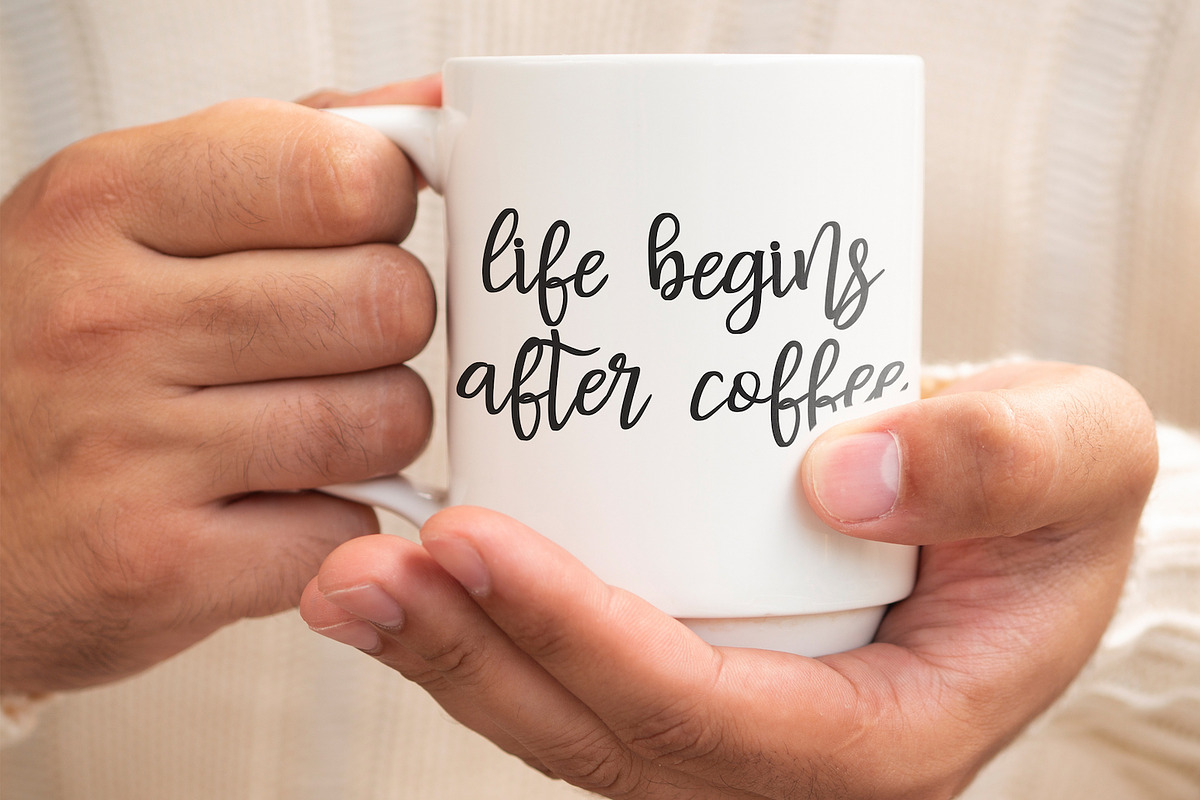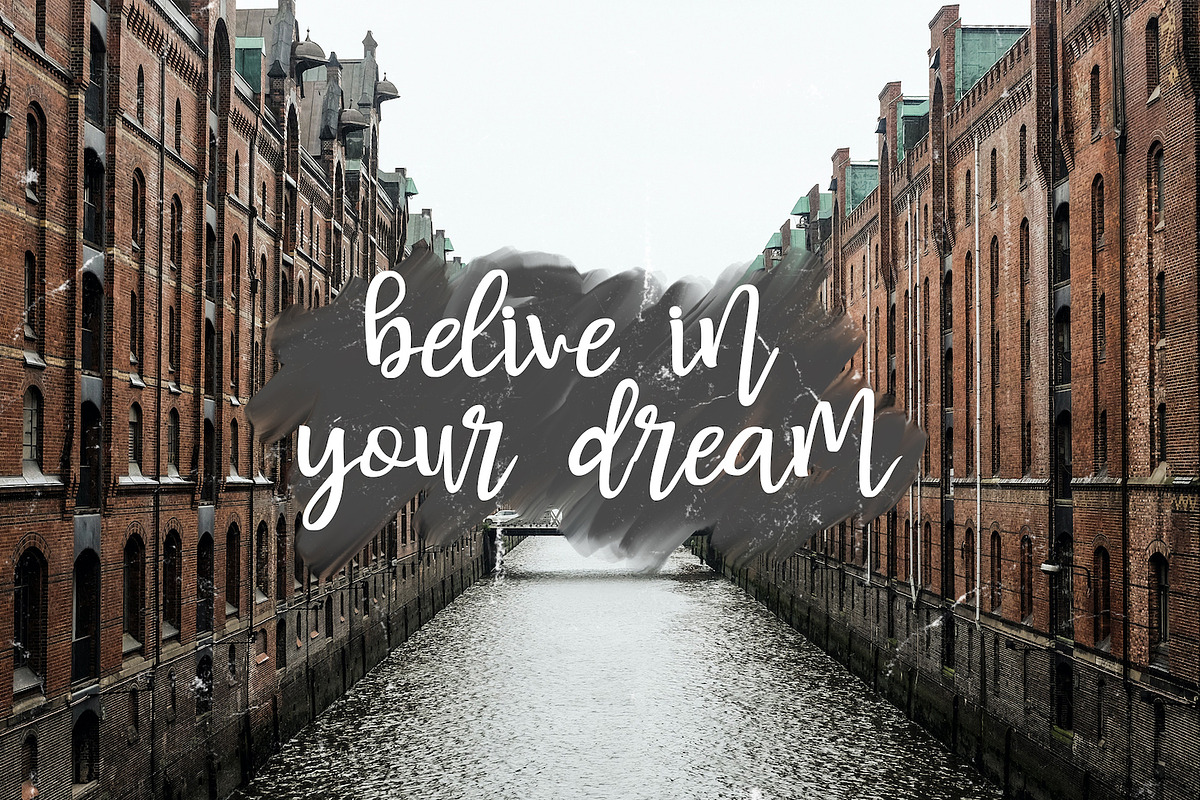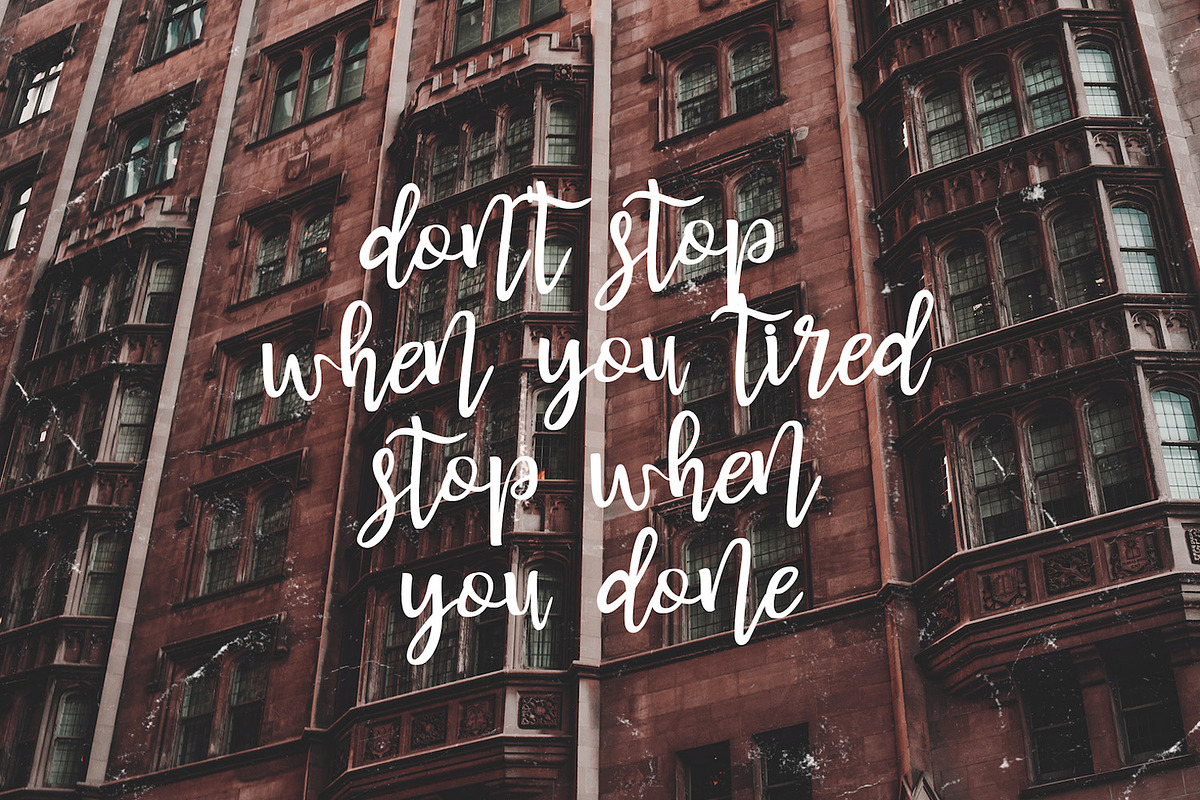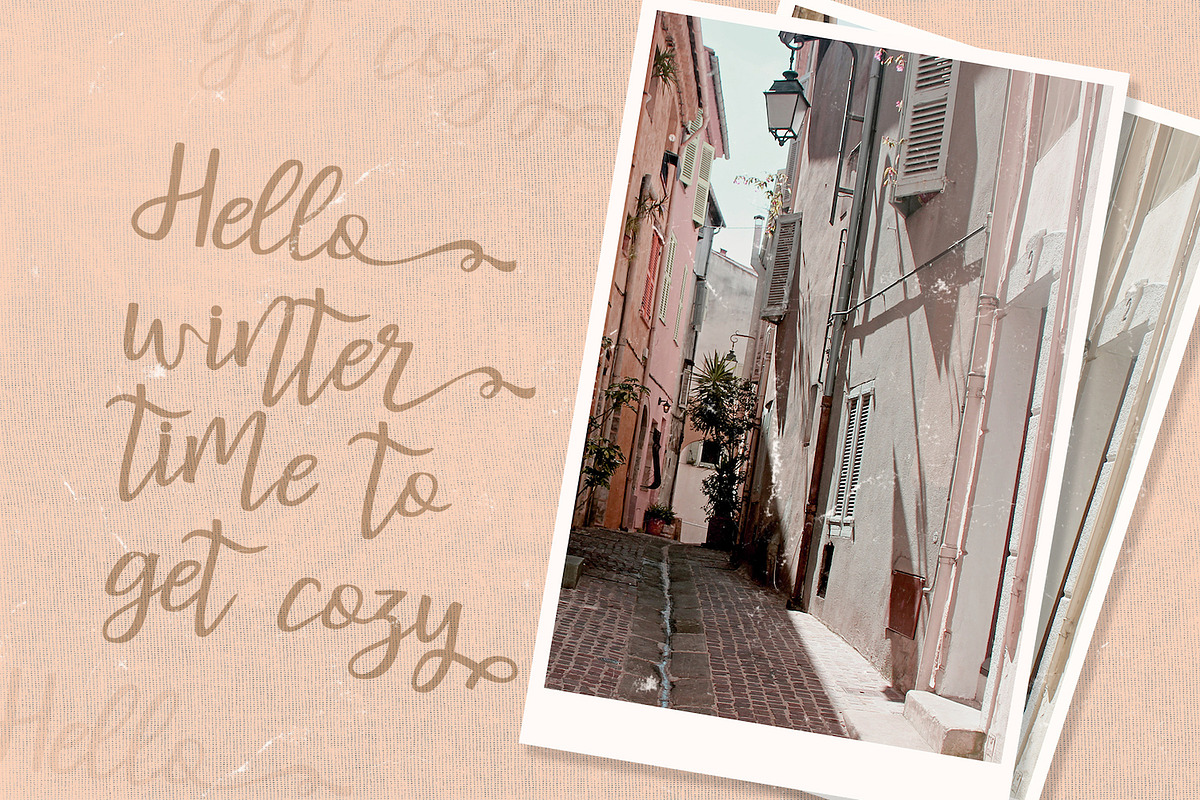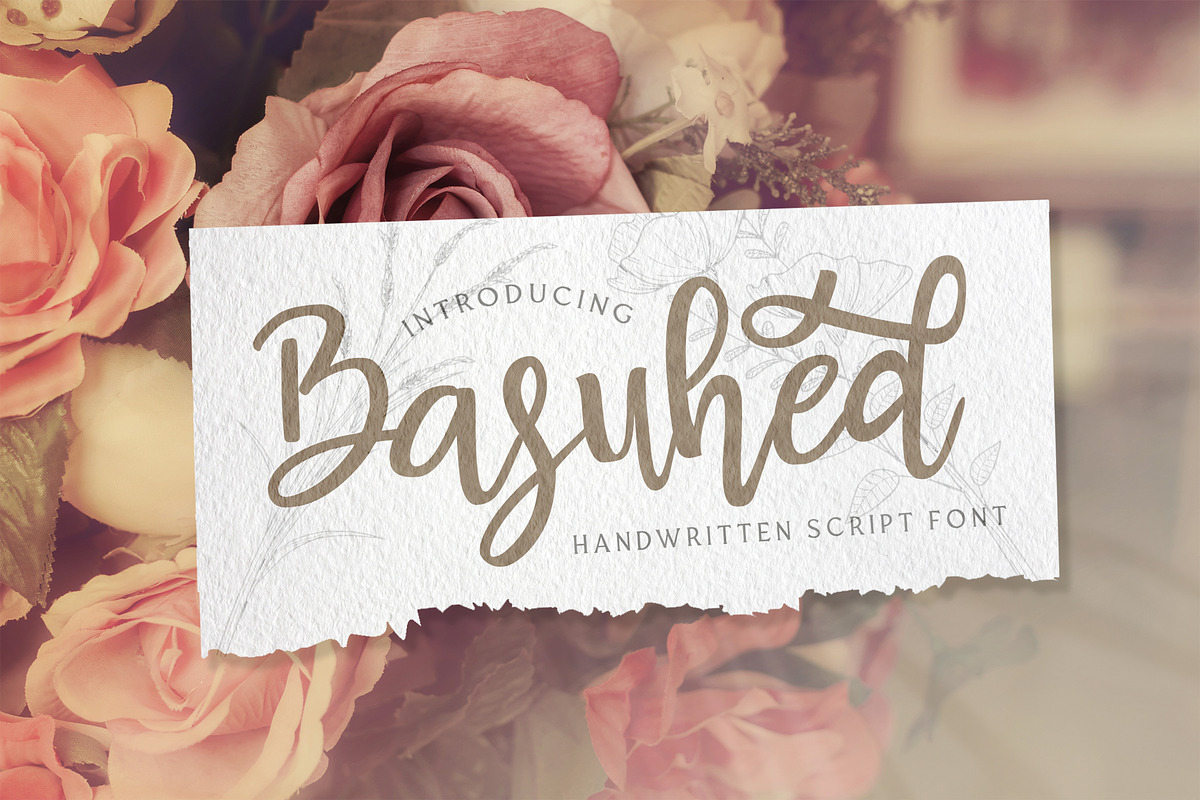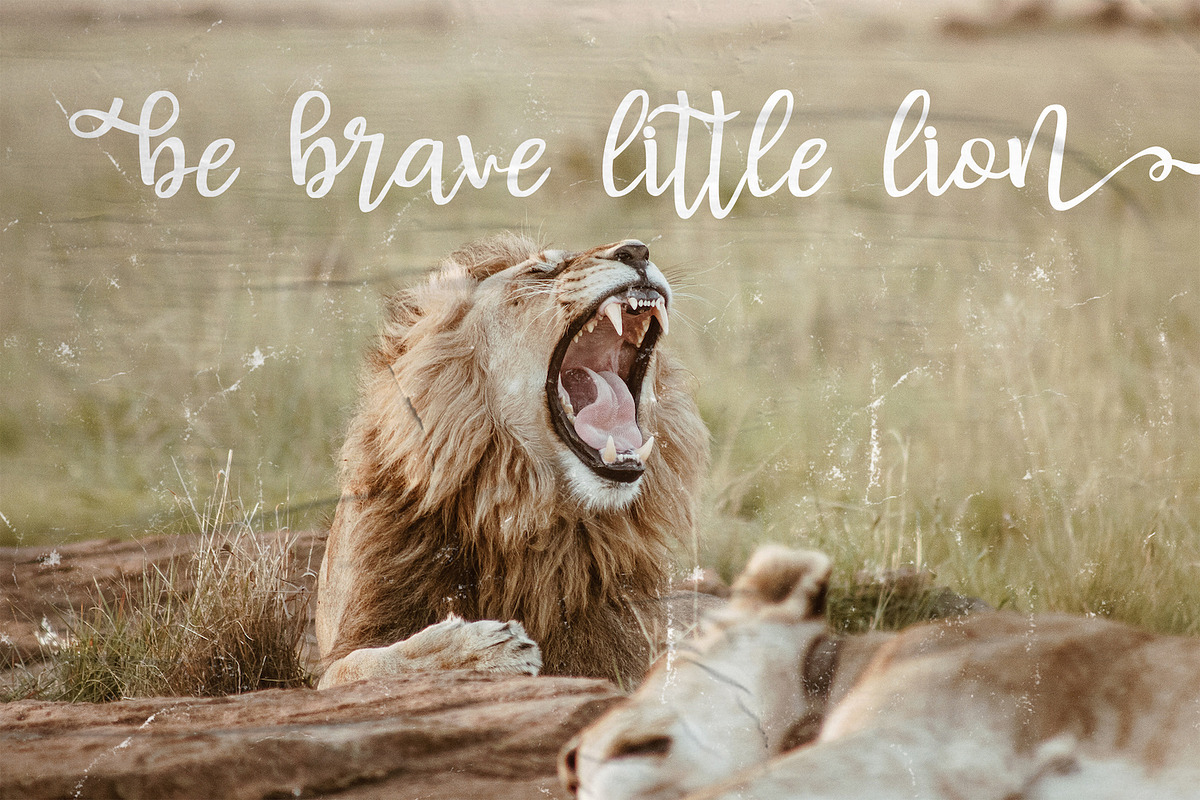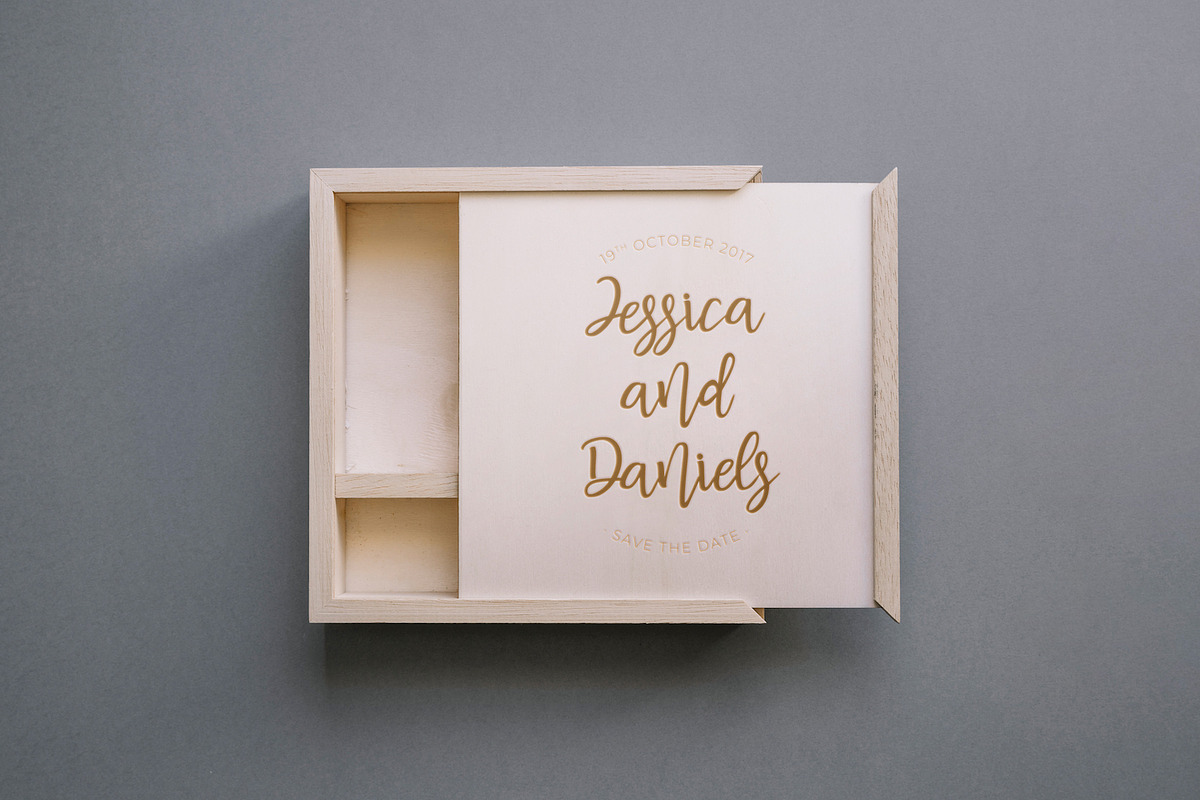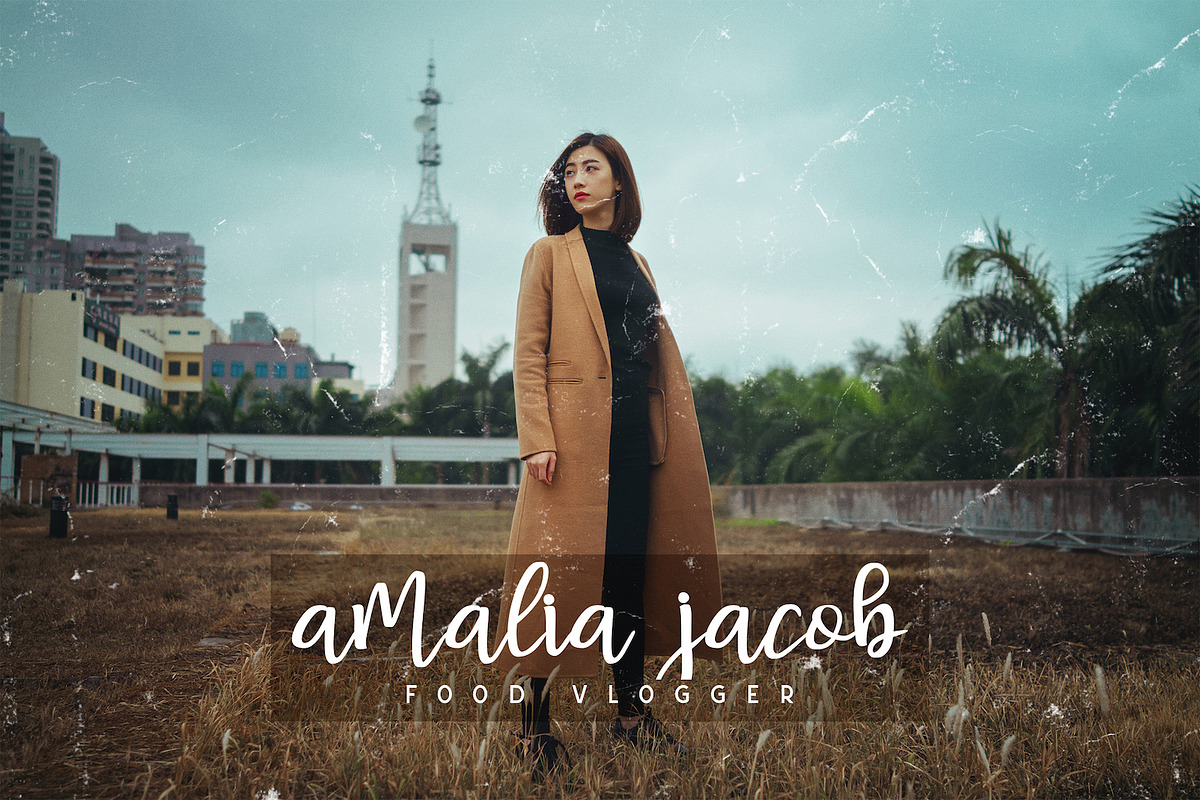
Basuhed - Handwritten Font
Introducing Basuhed - Handwritten Font
Basuhed is a script font with handwritten calligraphy style. The Basuhed font made with digital brush pen strokes that making this font look authentic. This font is perfect for fashion brand, wedding invitation, business card, logo brand, signature, and then calligraphy.
- This Font contains Elegant, Authentic, Luxury and has a Unique Concept.
Basuhed - Handwritten Font by StringLabs fits naturally into Branding, posters, packaging, typography.